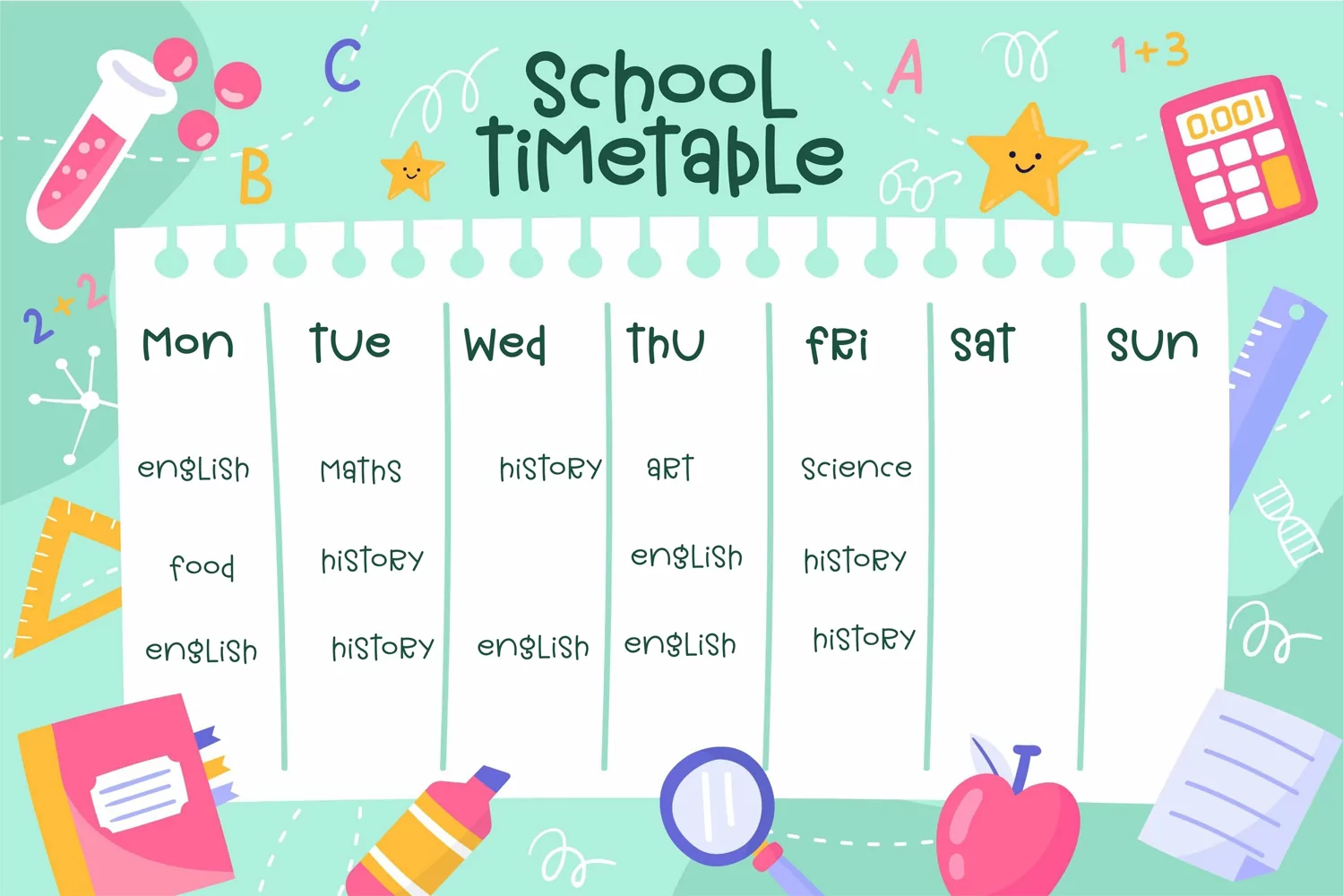
Simple Planner is a duo-styled handwritten font that feels equally charming and delicate. Rainbow Sisters will turn any creative idea into a standout!
Simple Planner Font